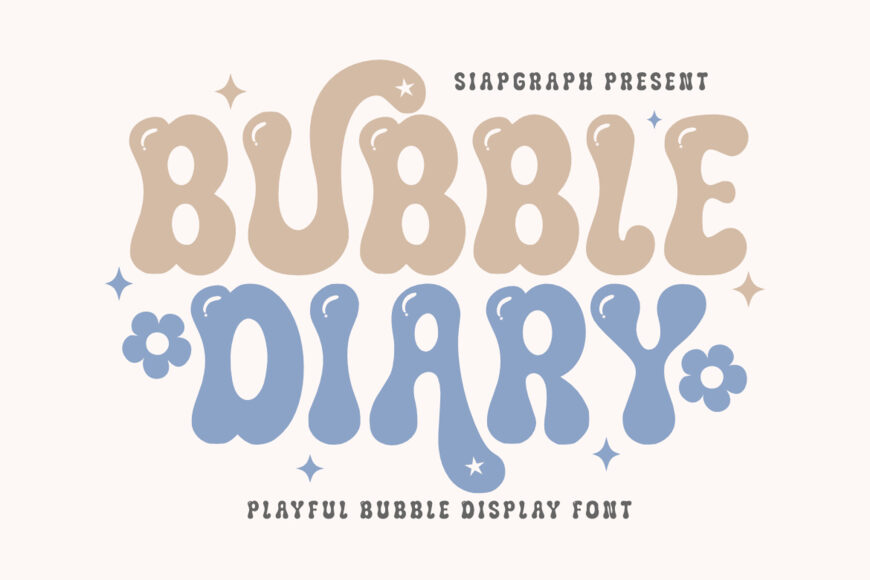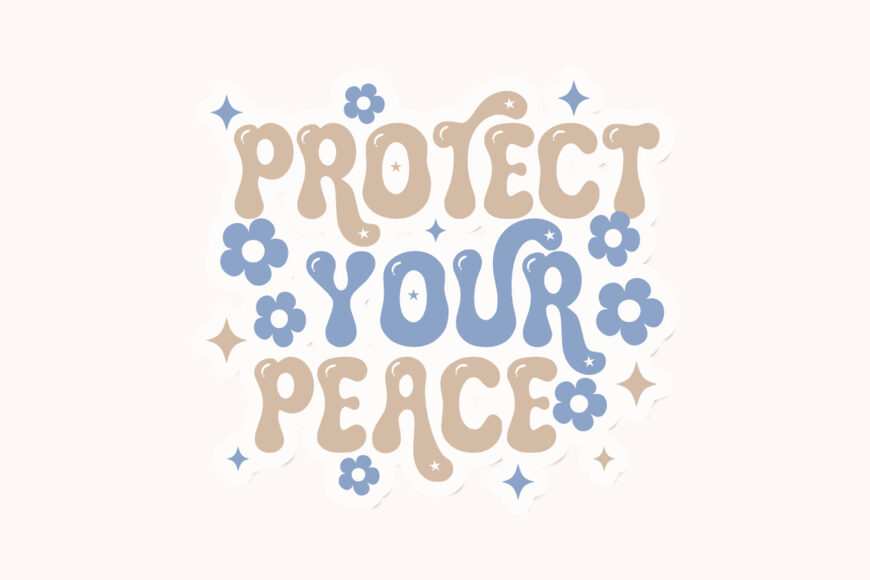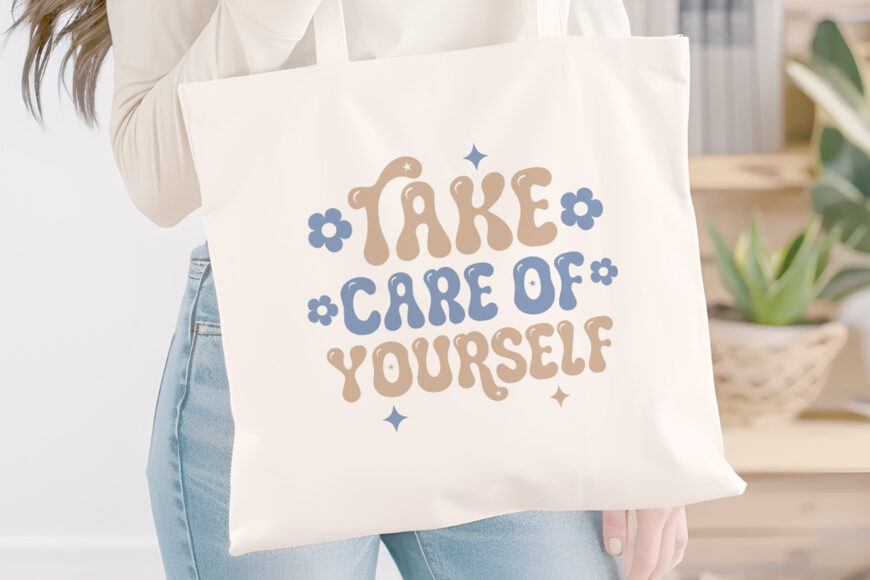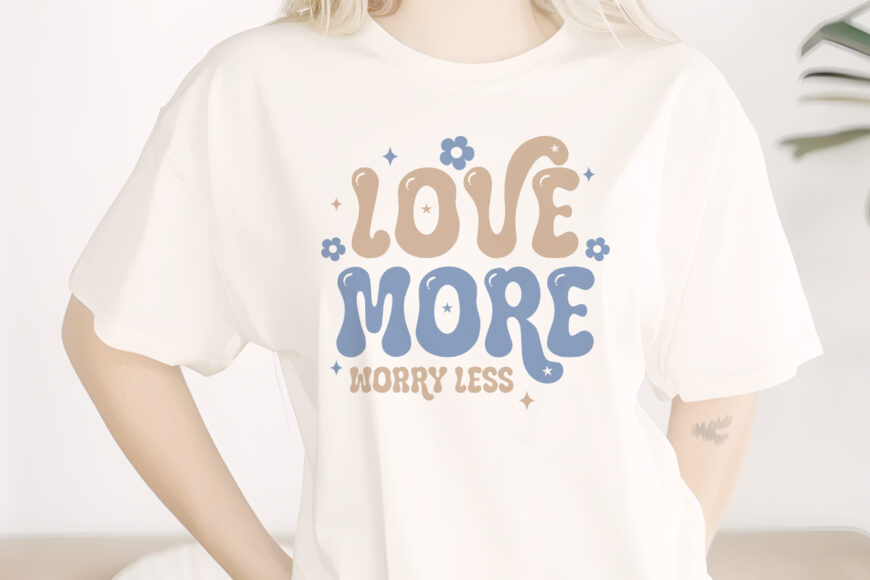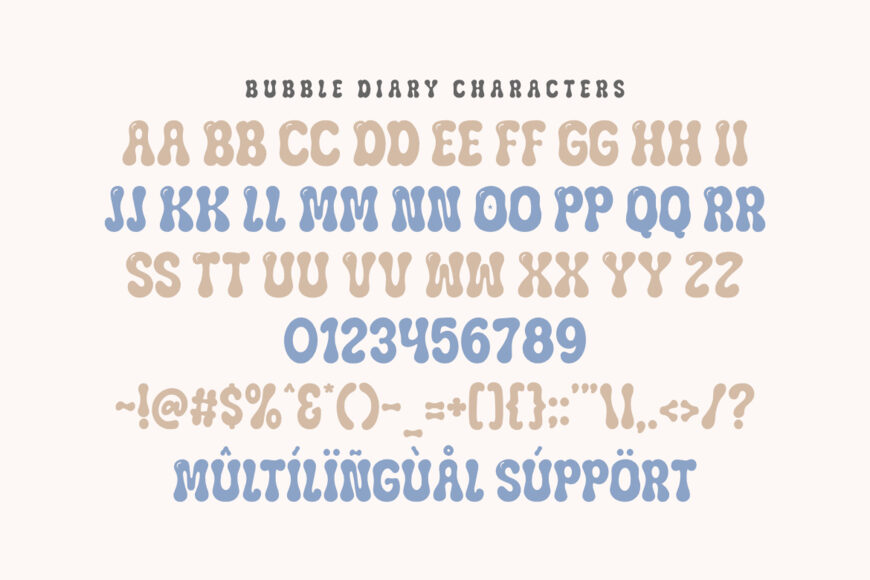
Bubble Diary Font
Bubble Diary is a delightful Playful Bubble Display Font specially crafted to bring a fun, friendly, and cheerful vibe to your creative projects.
Featuring bold, chunky, and rounded letterforms accented with adorable bubble details and charming flower elements, this typeface is designed to make your projects stand out with a whimsical and happy personality. Its clean and solid construction is optimized for the crafting community, ensuring a seamless and frustration-free experience for vinyl cutting, sublimation, and high-quality digital printing.